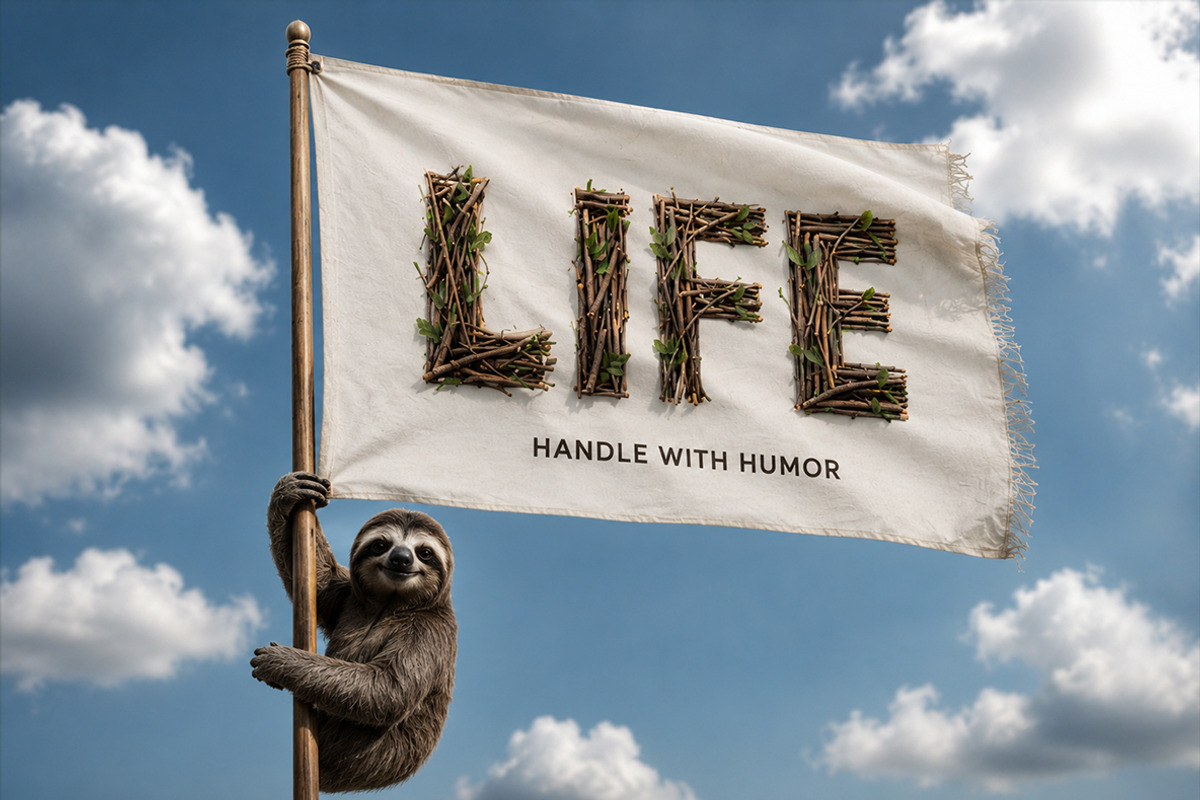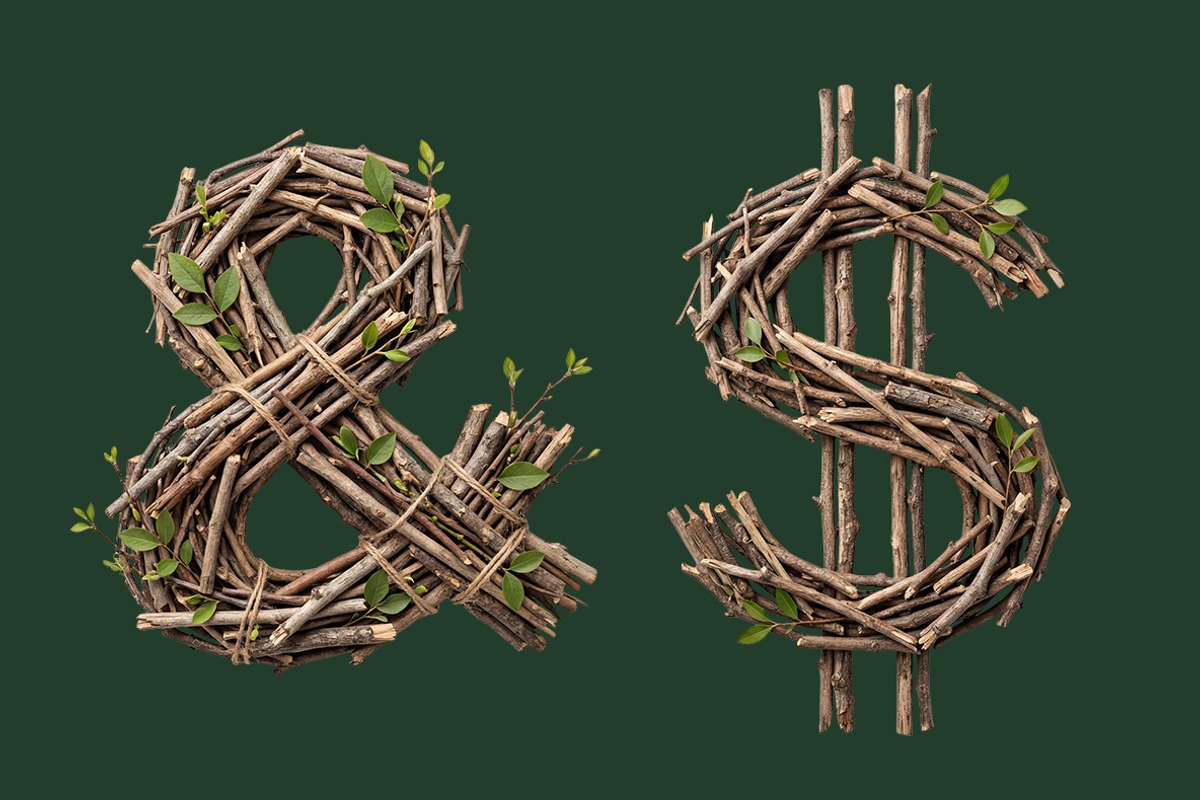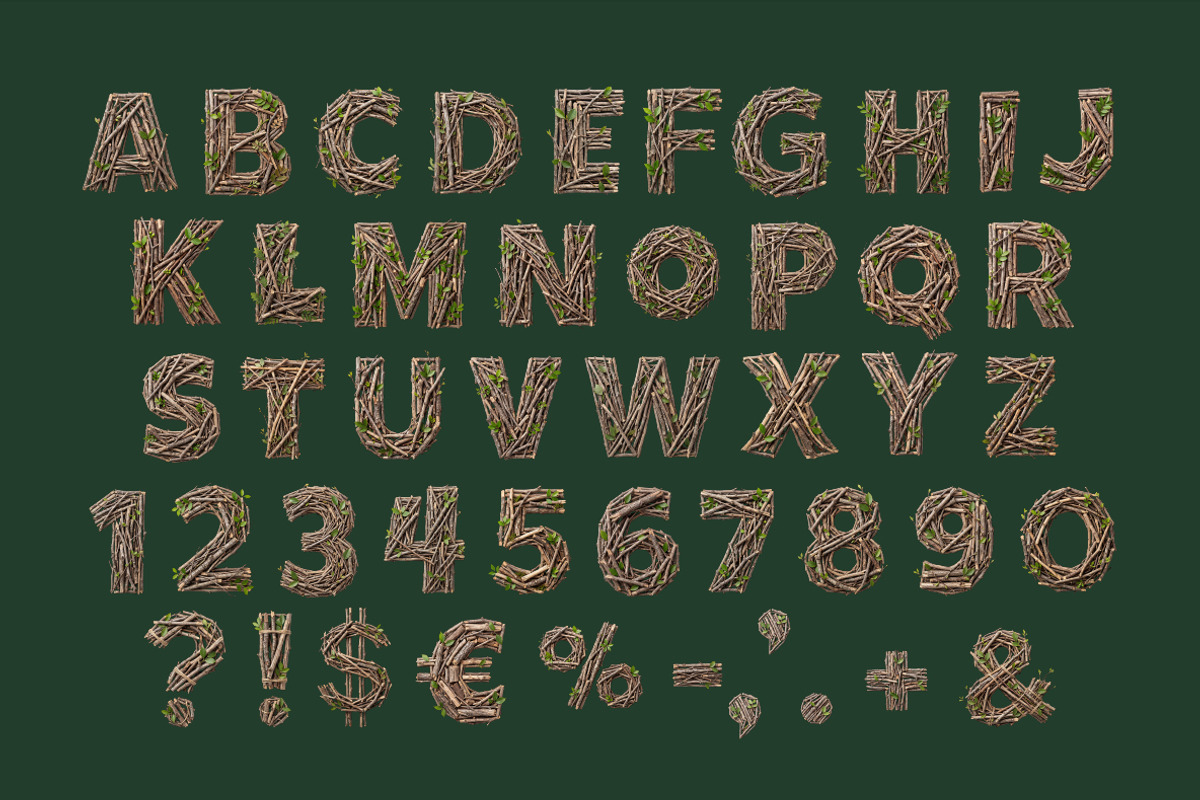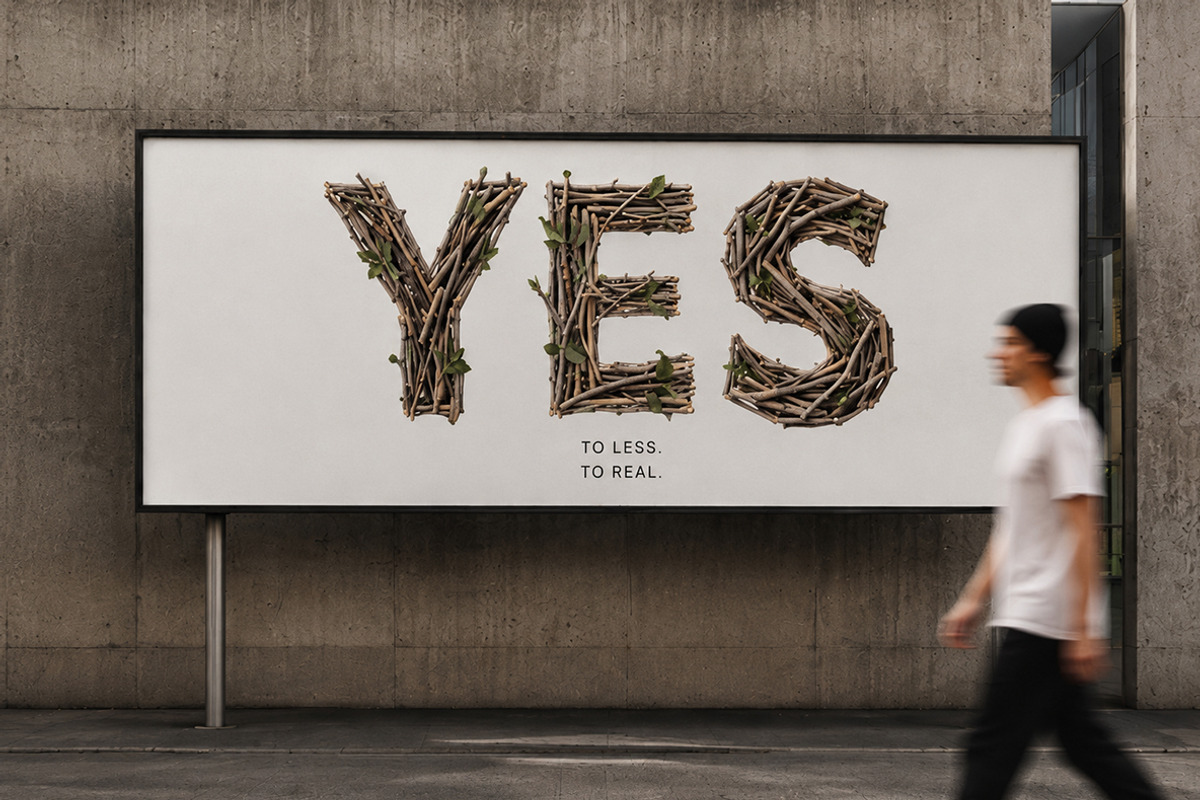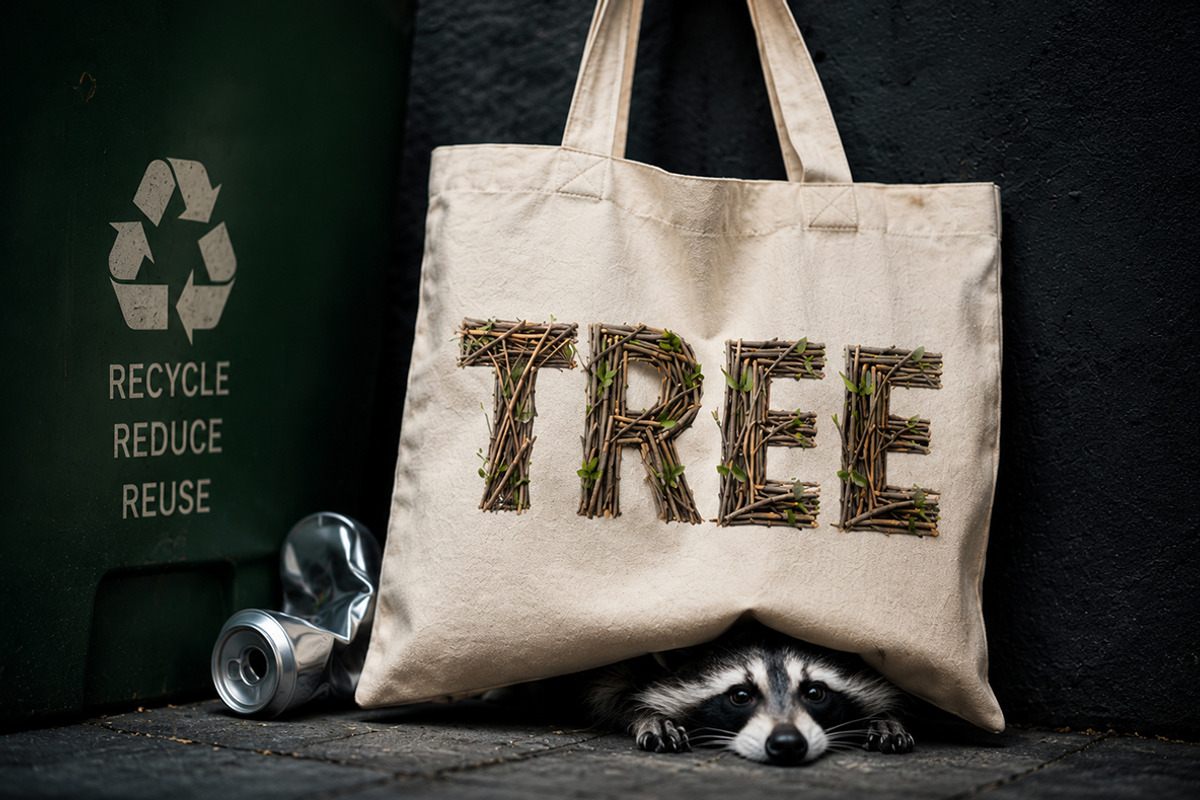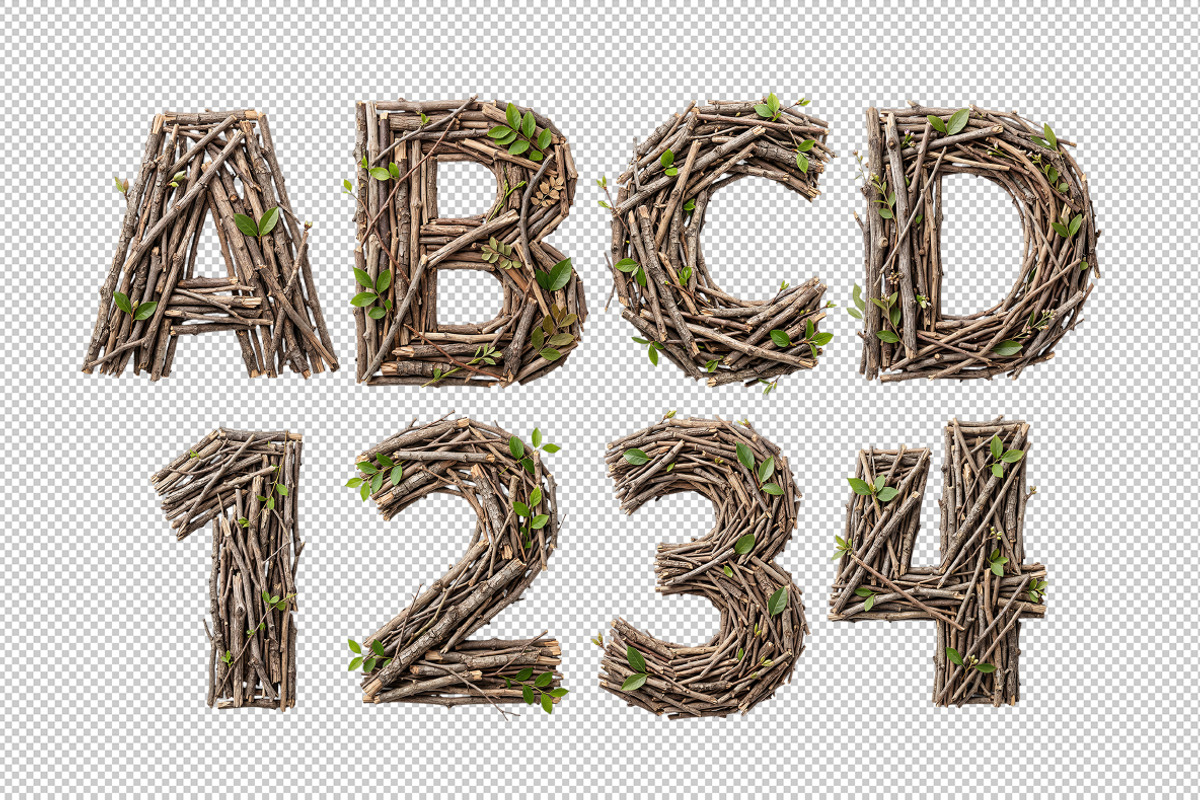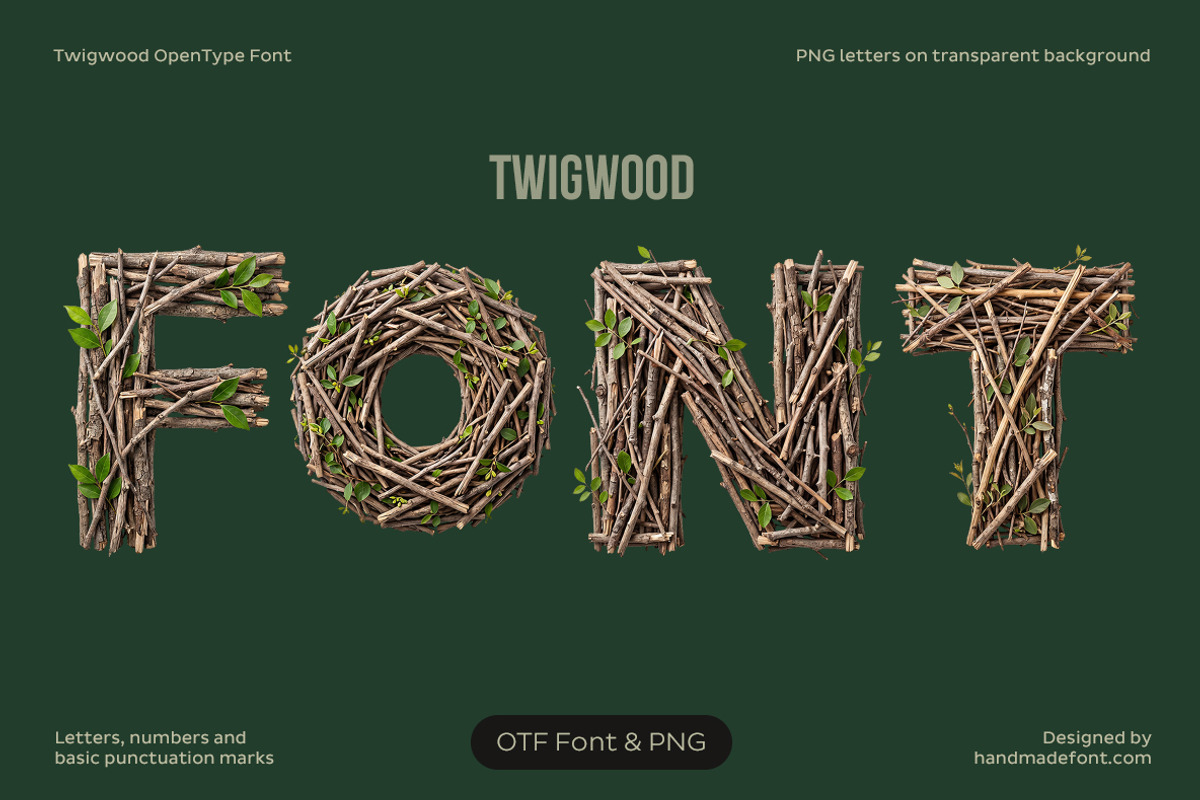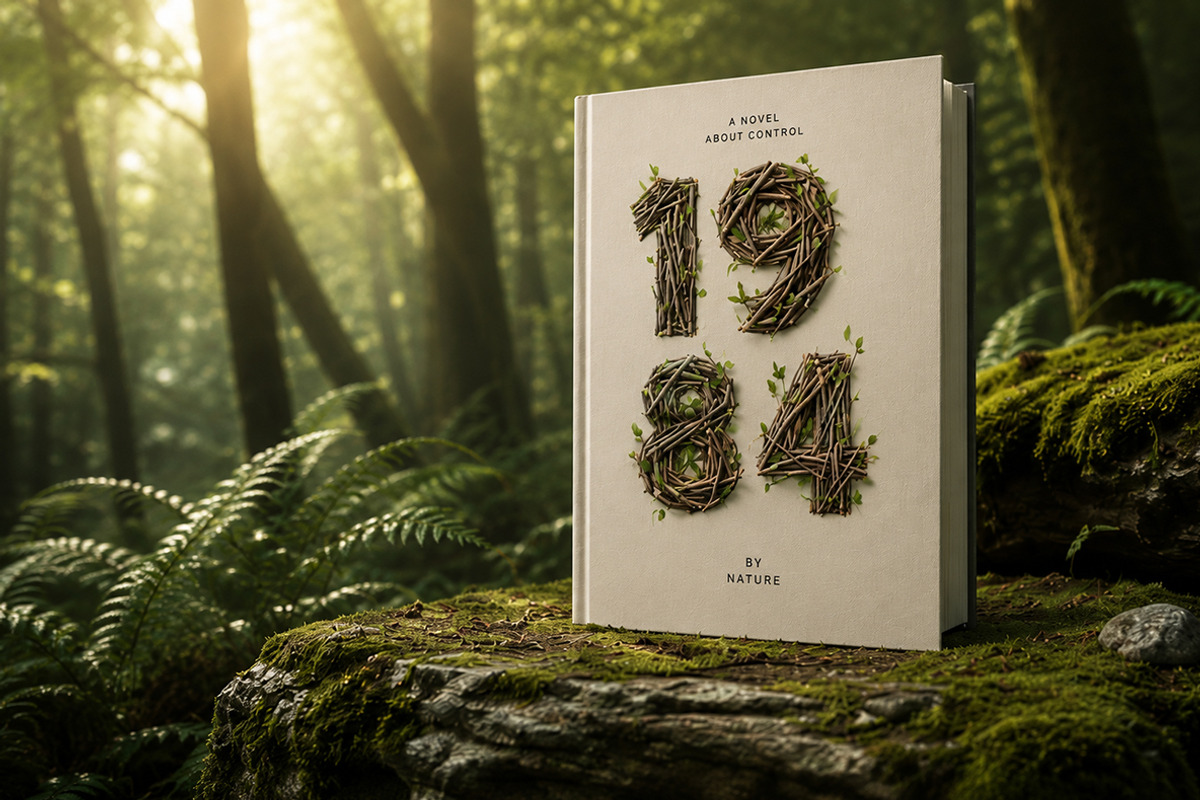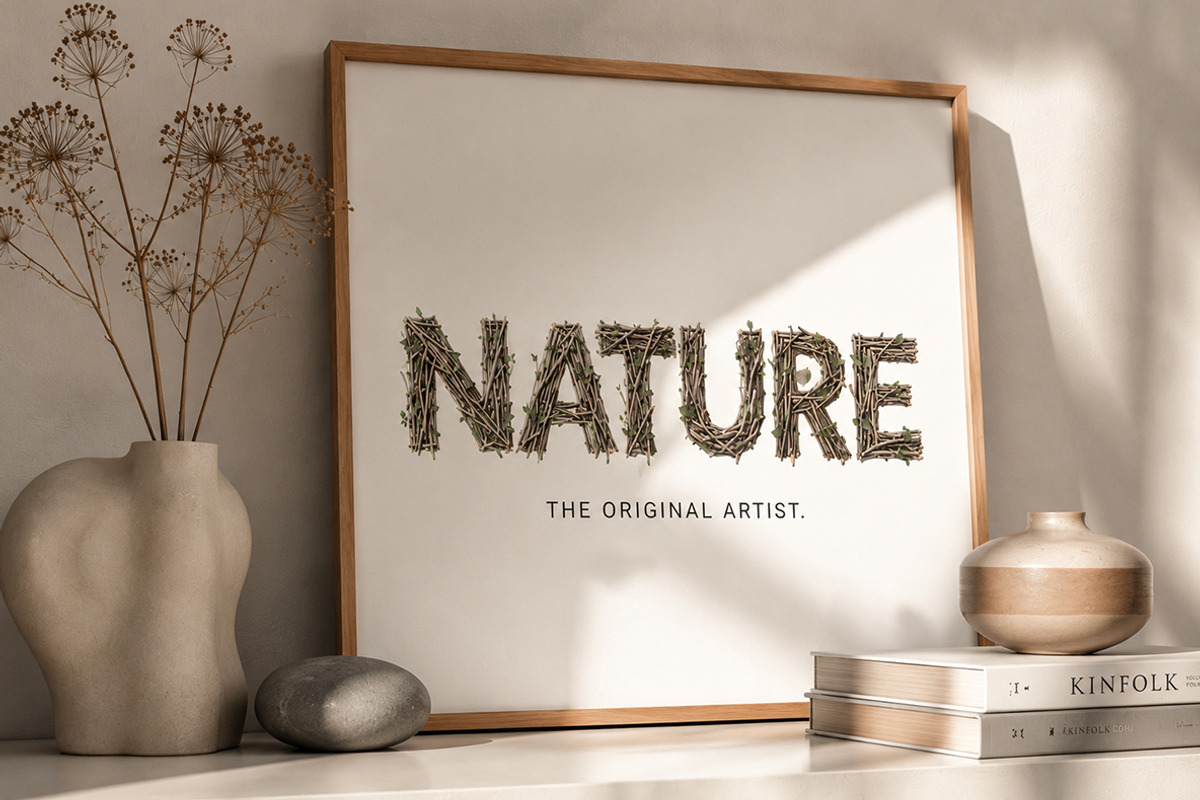
Twigwood Font
Twigwood Font is a handcrafted OpenType (OTF) typeface inspired by intertwined branches, woodland textures, and natural craftsmanship. Every character is carefully built from realistic twigs with subtle green leaves, creating an organic, rustic appearance while remaining highly legible. Perfect for branding, packaging, posters, book covers, invitations, logos, seasonal designs, eco-friendly products, and creative editorial projects, Twigwood adds warmth and authentic forest character to every composition. The package includes the complete OTF font for effortless typing, plus every letter, number, and symbol as individual high-resolution PNG files with transparent backgrounds, making it easy to create unique layouts, mockups, and custom graphic designs.
Letters : A B C D E F G H I J K L M N O P Q R S T U V W X Y Z
Numbers : 0 1 2 3 4 5 6 7 8 9
Others : ! ? - . ' $ € % & #